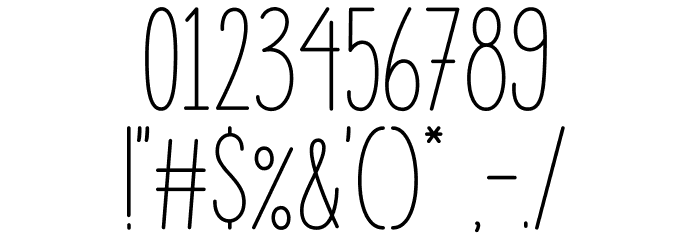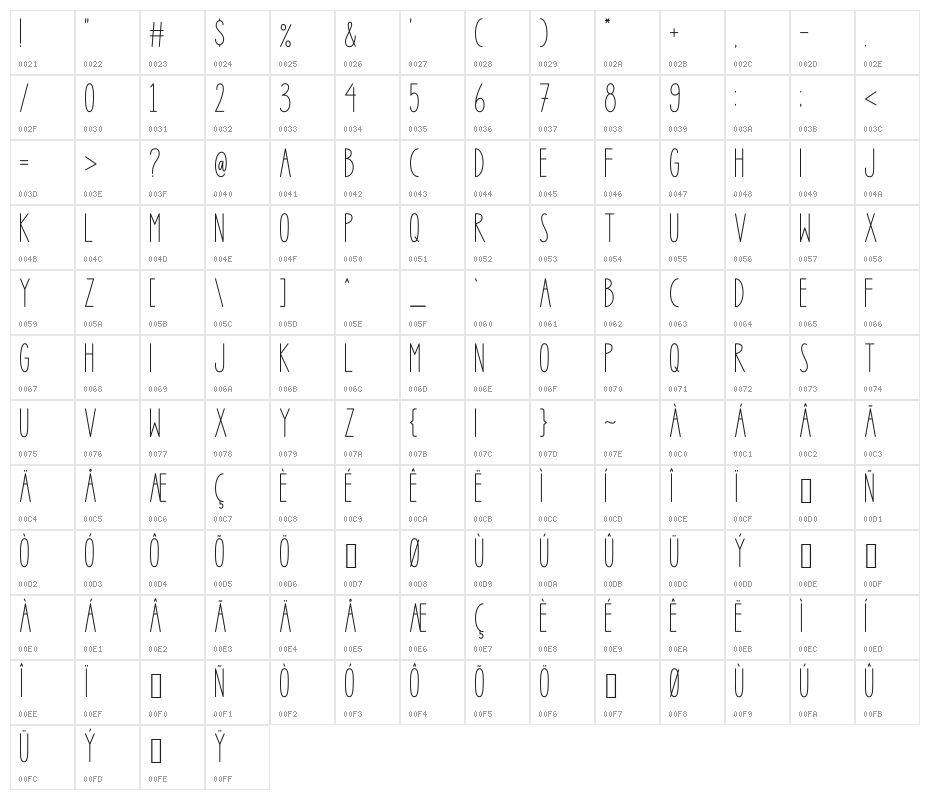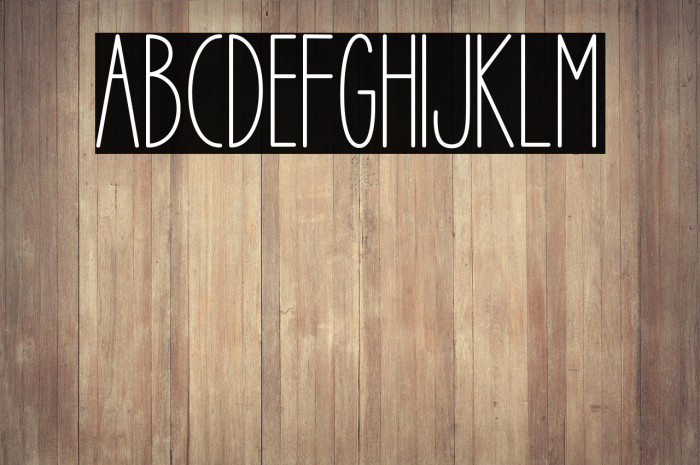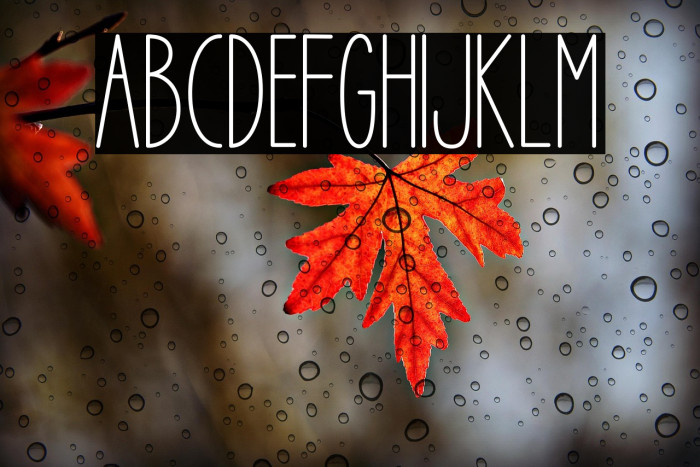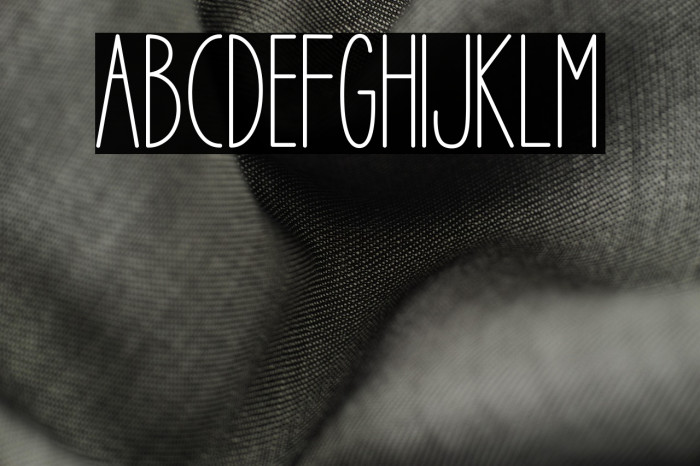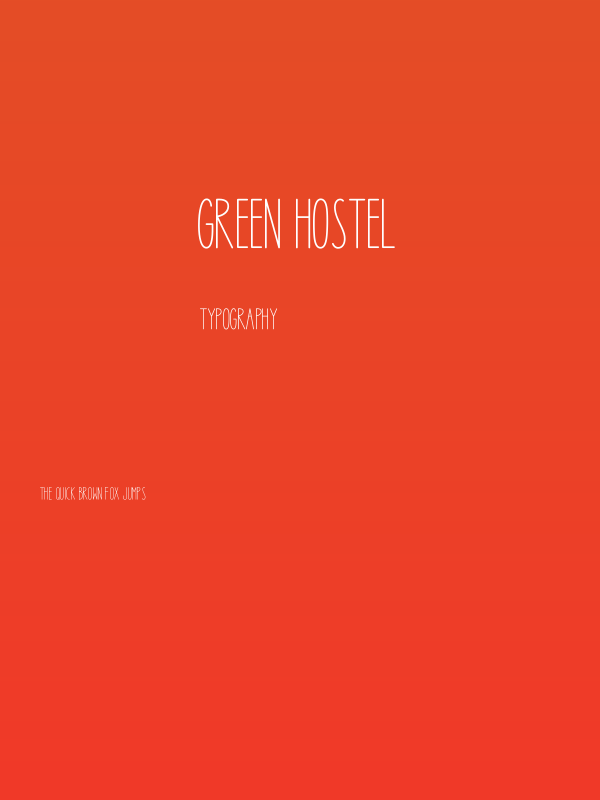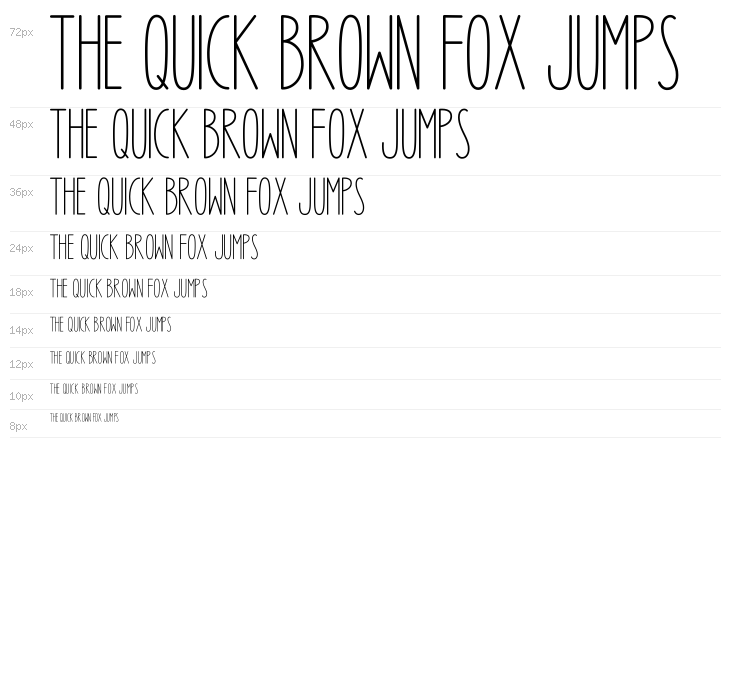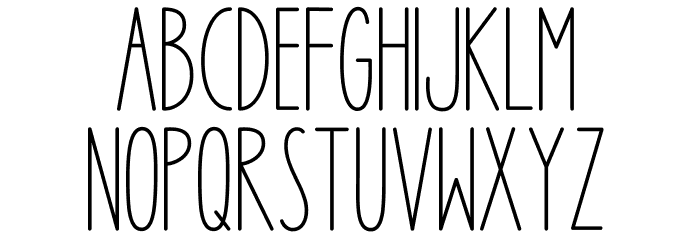
Green Hostel Font
Green Hostel Description
This font features a tall, narrow design with clean, straight lines and minimal curves, giving it a modern and sleek appearance. The characters are uniformly thin, contributing to a light and airy feel. The uppercase and lowercase letters maintain a consistent height, enhancing readability while adding a touch of elegance. The numbers and special characters follow the same design principles, ensuring a cohesive look across all elements. The overall style is minimalist, making it suitable for contemporary designs that require a subtle yet distinctive typeface.
| Proposed Projects | Ideal for modern branding, minimalist posters, elegant invitations, and sleek website headers. |